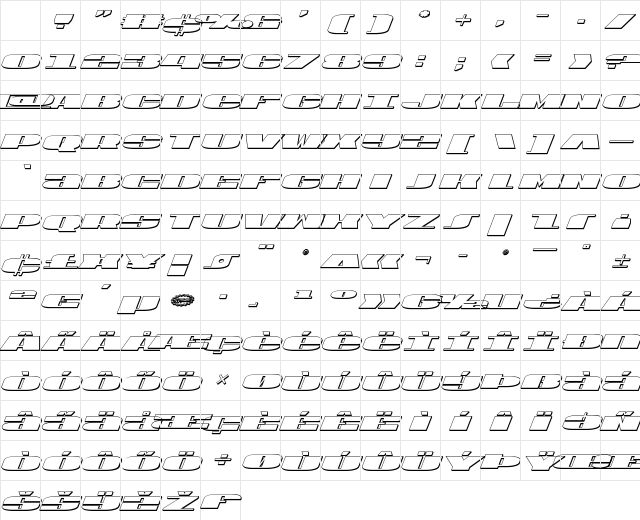
Complete U.S.A. 3D Italic glyph index. Displaying only characters natively supported by U.S.A. 3D Italic font.
U.S.A. 3D is a composed and adaptable typeface that performs quietly and consistently across a wide range of design contexts. The slanted form adds forward momentum and visual energy.
Pro Tip: Use U.S.A. 3D for emphasis, pull quotes, and subheadings where its slanted energy can add rhythm to the layout.